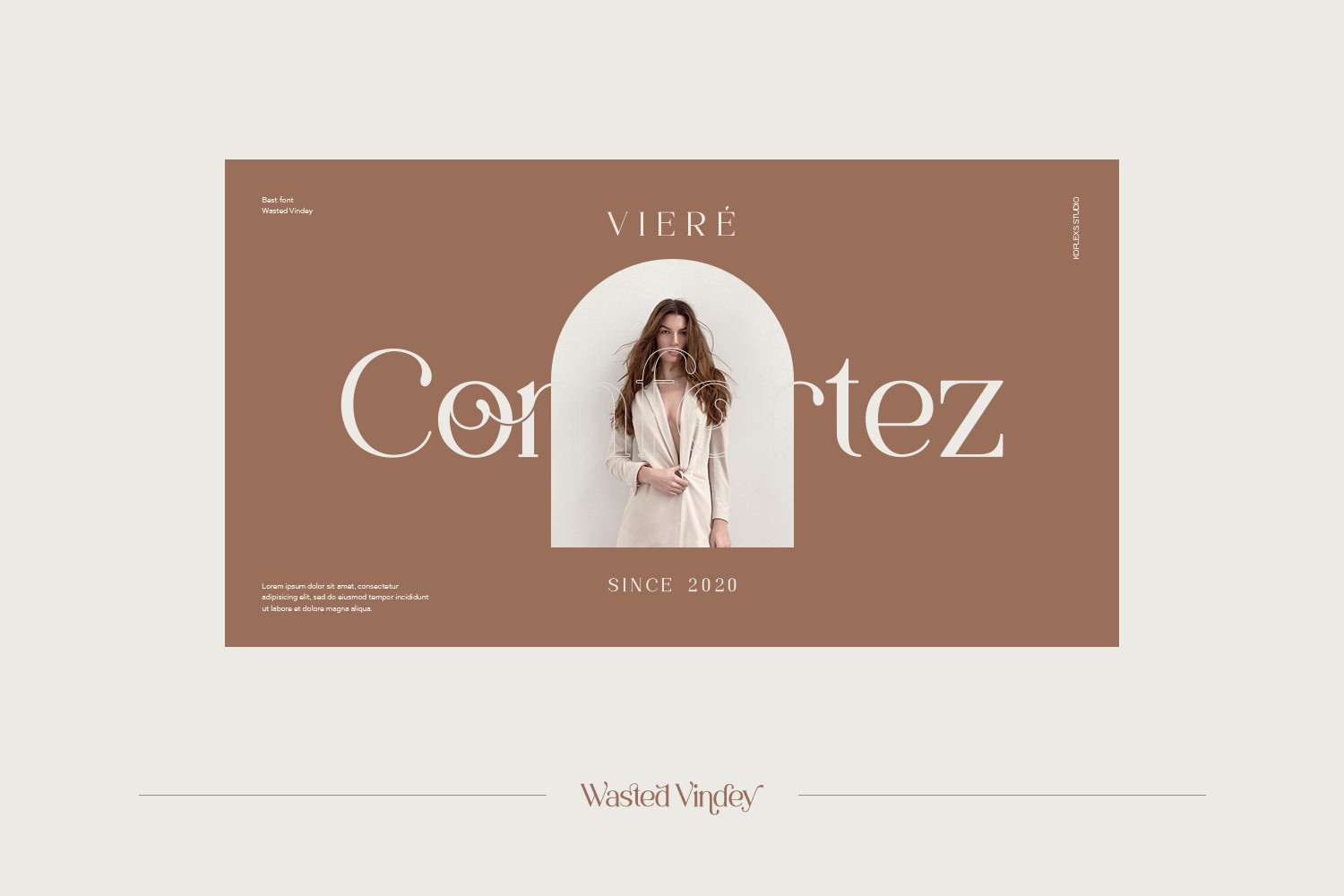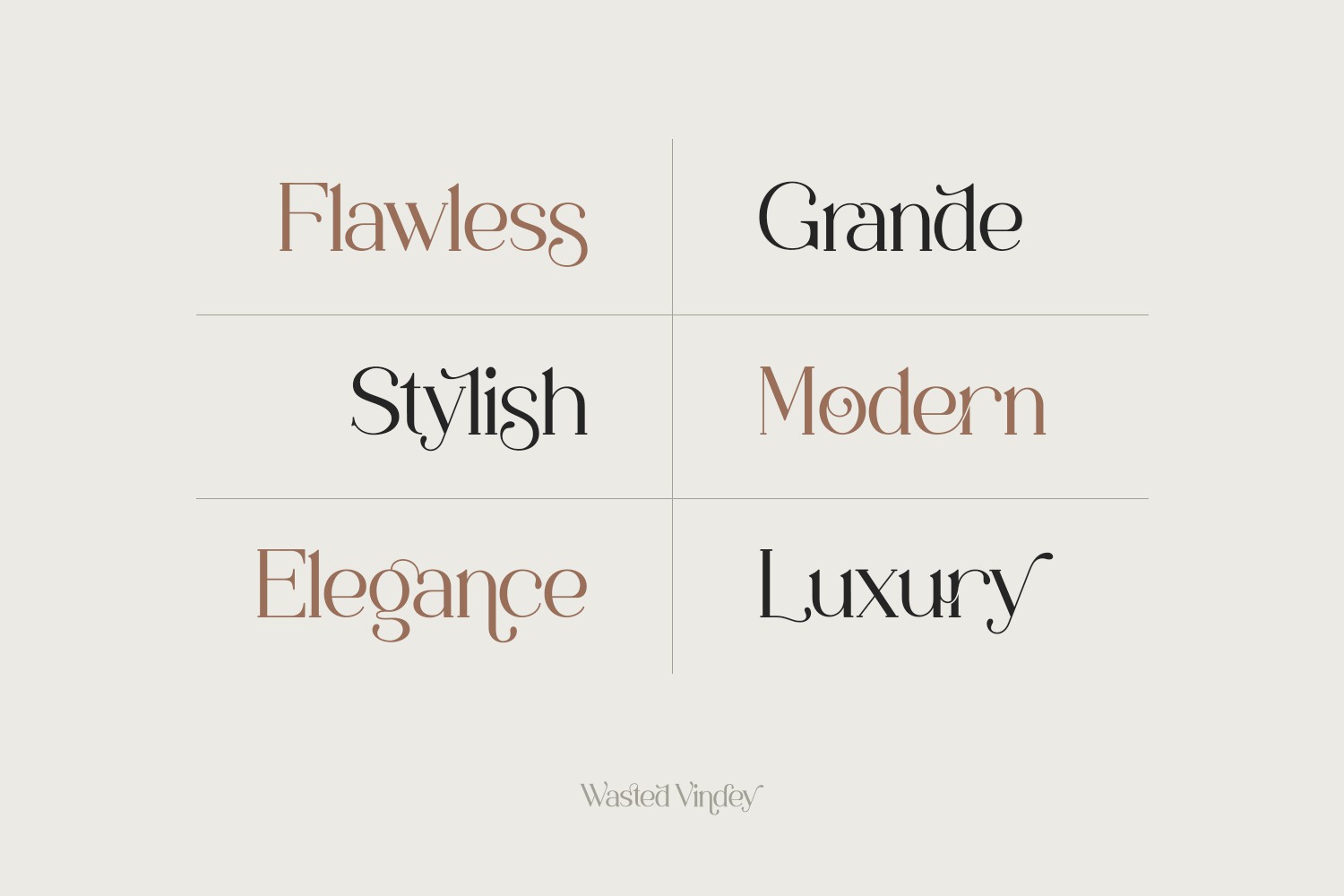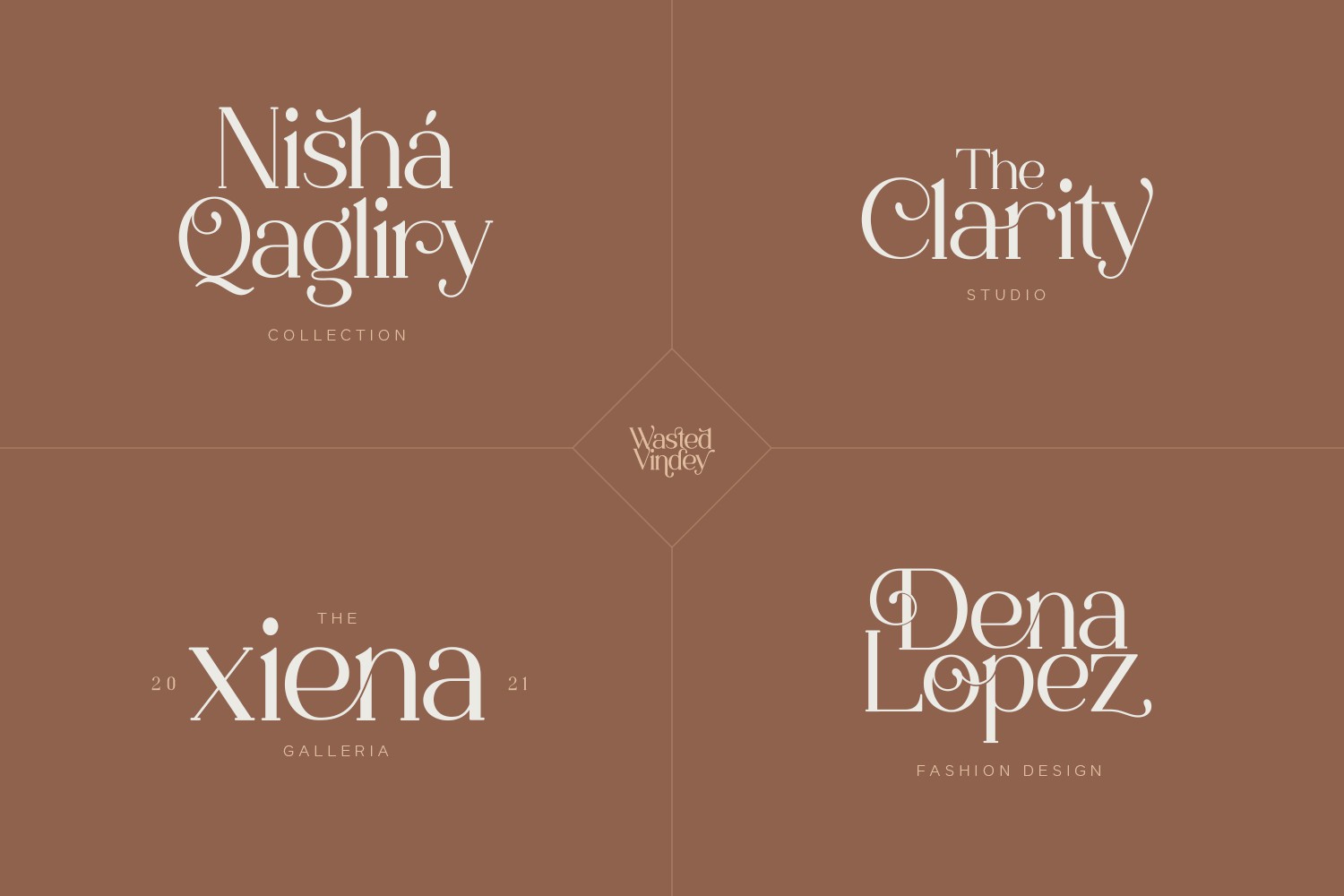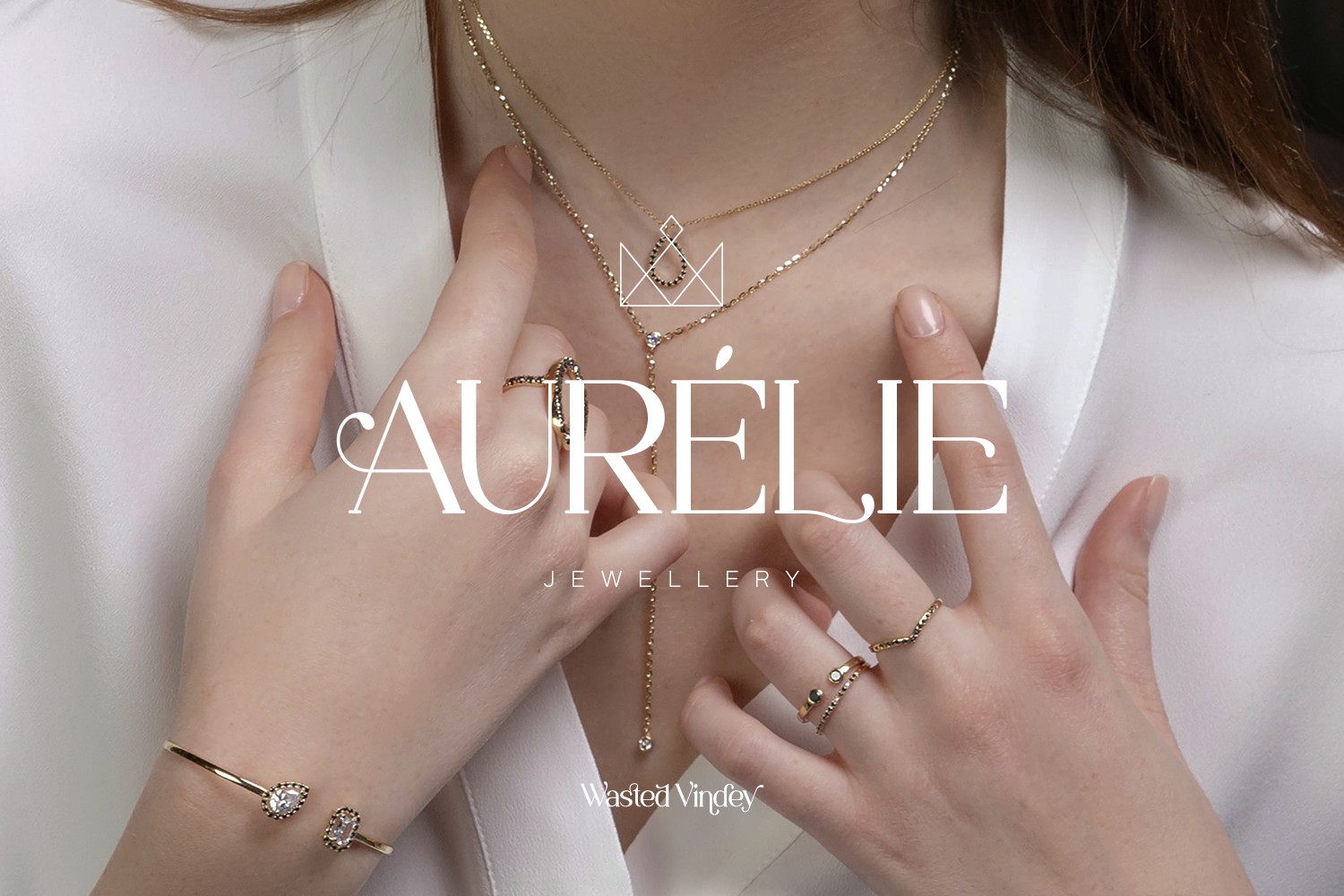
Wasted Vindey Free Font
Wasted Vindey Free Font is a slim and delicate serif font. This free typeface was designed by a talented Koplexs Studio. If you like it don’t forget to check out the full version.